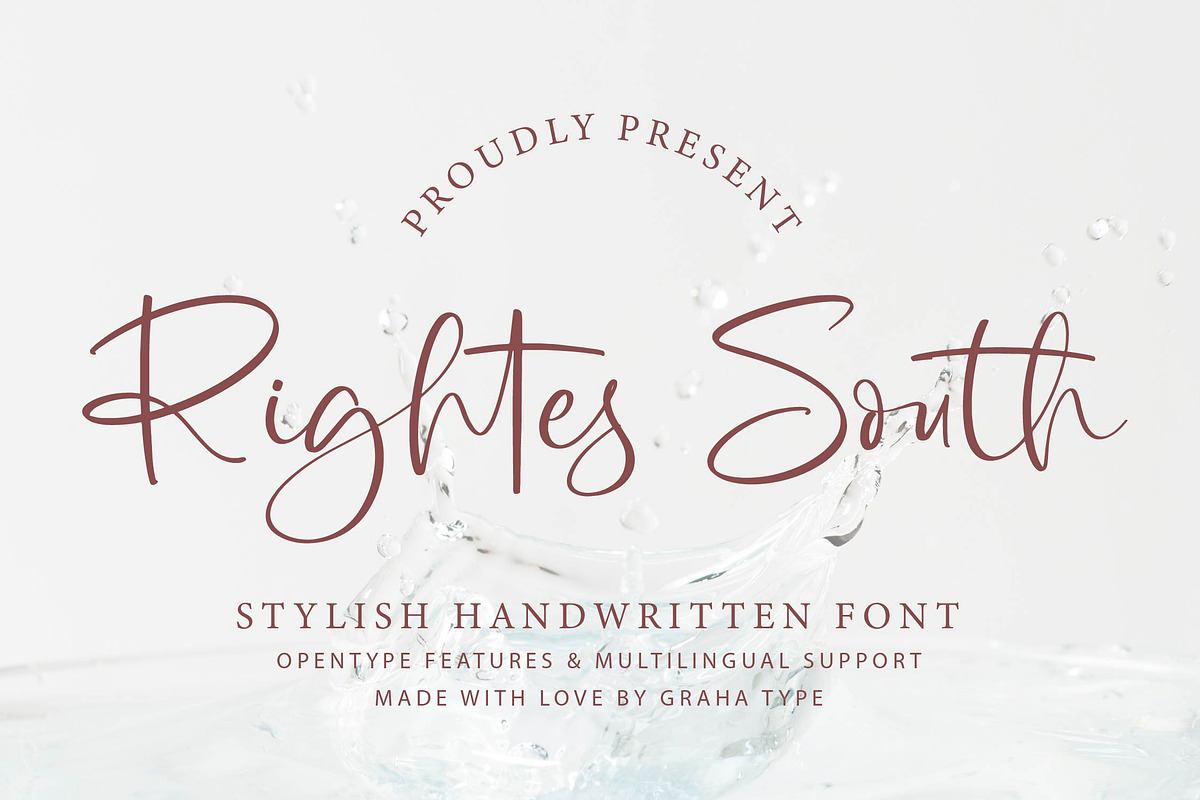
Rightes South - Stylish Handwritten Free Download
Rightes South – Stylish Handwritten Font Free Download is a modern script typeface that combines elegance with a personal, handcrafted touch. With its smooth strokes, flowing curves, and natural rhythm, this font is perfect for wedding invitations, fashion branding, signature logos, social media graphics, and beauty product packaging.
Designed to look like authentic handwriting, Rightes South brings warmth and sophistication to your typography. It’s an ideal choice for creatives who want their designs to feel stylish, approachable, and uniquely expressive.